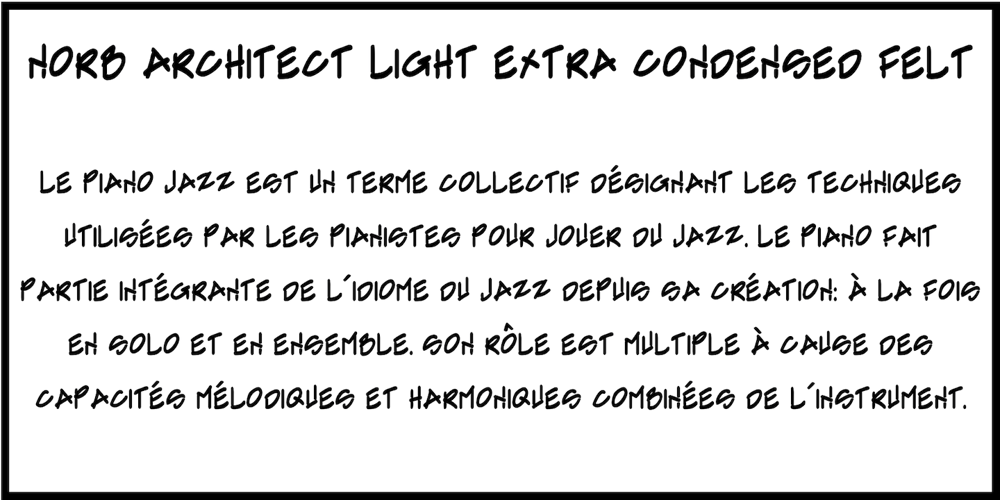
NorB Architect CF Font Family was designed by Nor Eddine Bahha and published by NorFonts. NorB Architect CF contains 12 styles and family package options. NorB Architect Condensed fonts are the condensed and the extra-condensed version of my NorB Architect font. It comes with 12 weights from Light to Condensed to Extra Condensed along with their Bold and Felt version.These Architectural fonts will add a beautiful architectural hand-lettering style to all your CAD project drawings. Architects have always wanted their CAD drawings to look more like they were drawn by hand, rather than by a CAD program. These AutoCAD fonts are the first step in bringing back that “artistic hand-drawn” feel to your CAD drawings or any graphic design project that can use true type fonts. They also can be used with any word processing program for text and display use, print and web projects, apps and ePub, Comics, graphic identities, branding, editorial, advertising, scrapbooking, cards and invitations … or even just for fun!NOTE: For more variations of ‘NorB Architect CF’ font please visit click on this link.